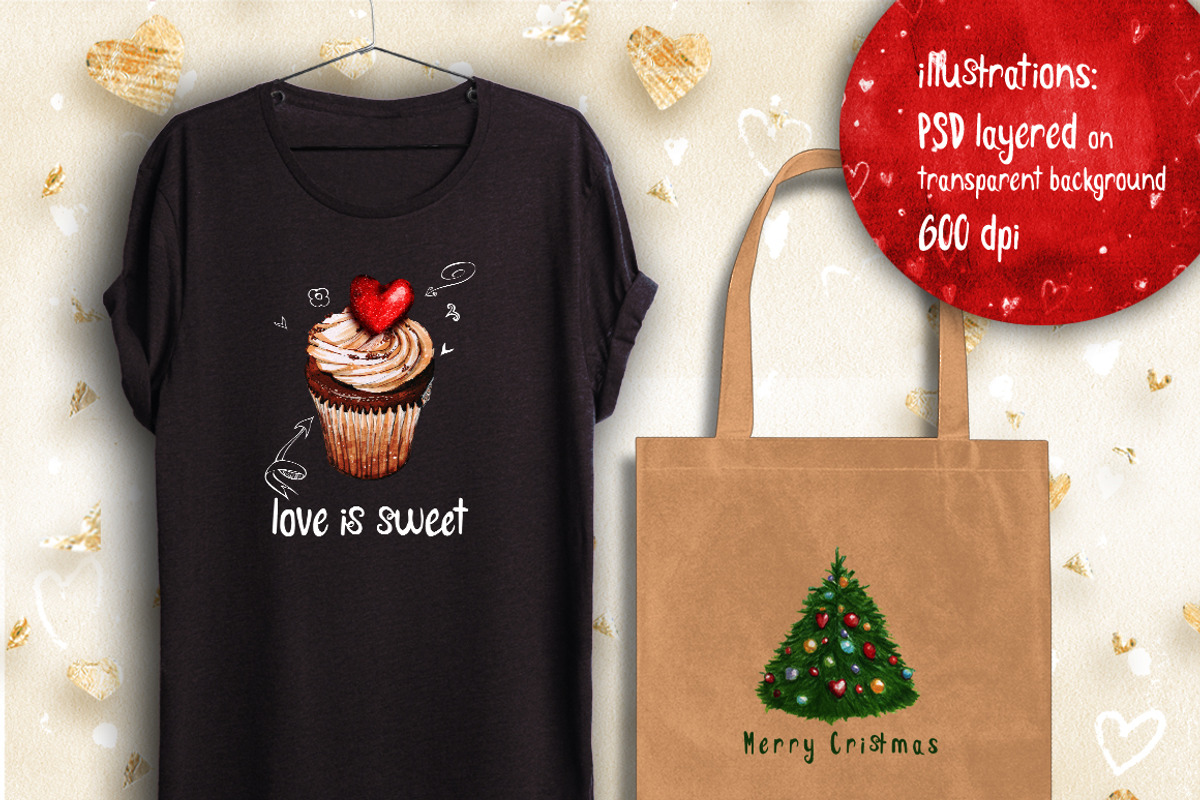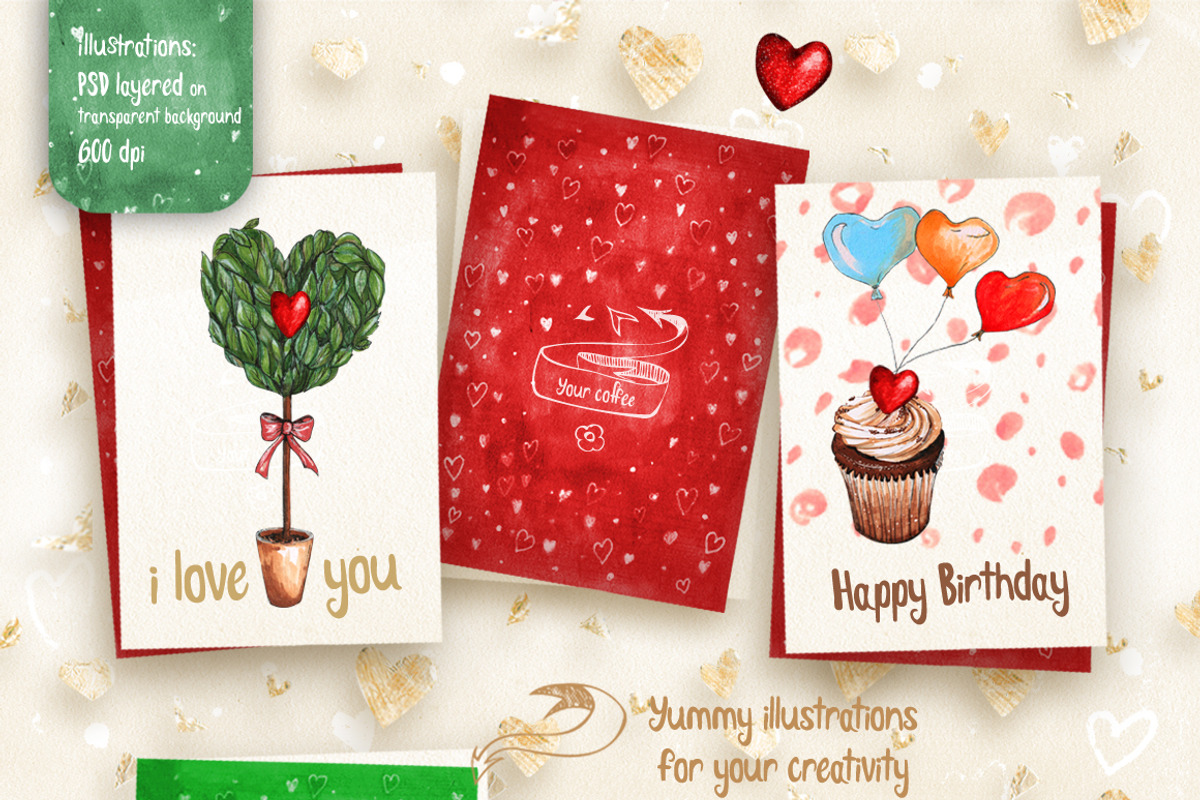
-50% WinterLoves font + bonus
-50% WinterLoves font + bonus by Oldy is a font selected for branding, posters, packaging, typography.
- In font included alternative spellings and ligatures.
- On the leaves preview 2 and 3 you can see examples of tracks created using the font and included in the illustrations.
- WinterLoves Regular
-50% WinterLoves font + bonus by Oldy fits naturally into Branding, posters, packaging, typography.